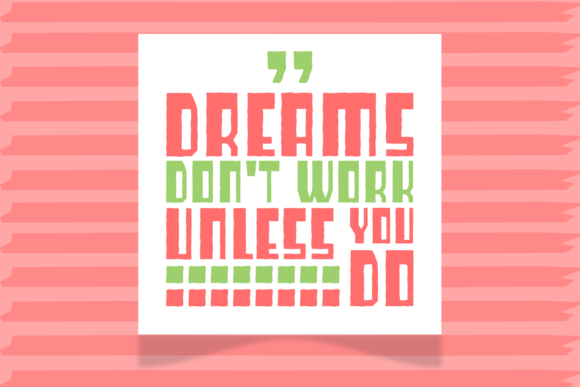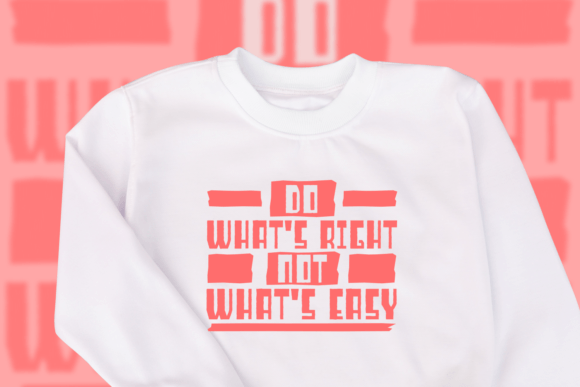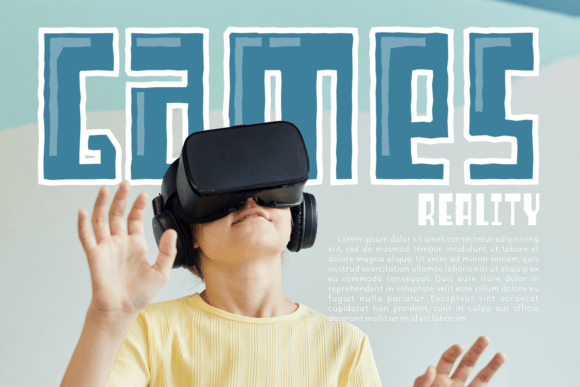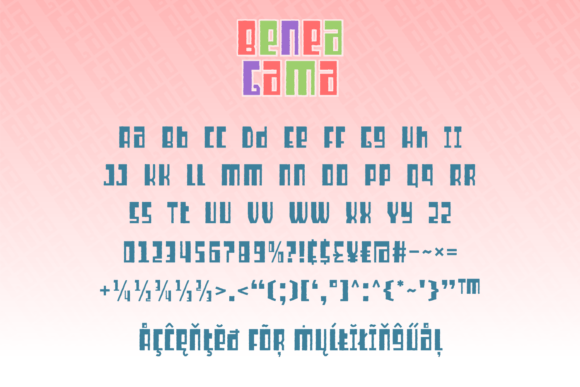
Benea Gama Font: Unleash Your Creativity with this Unconventional Display Font
In the world of typography, fonts play a crucial role in conveying a message, expressing creativity, and setting the tone for a brand or project. With countless options available, designers and crafters are always on the lookout for something unique and attention-grabbing. This is where Benea Gama Font comes in – a quirky and unconventional display font that challenges traditional design and adds an element of surprise to any project.
The Uniqueness of Benea Gama Font
Benea Gama Font is unlike any other font you’ve ever seen. Its unusual shapes and irregular curves make it a true standout in the world of typography. This font is not for the faint of heart; it’s for those who dare to be different and want to make a statement. With Benea Gama Font, you can add a touch of whimsy and playfulness to your designs, making it perfect for innovative branding, unconventional marketing campaigns, and any project that requires a bold and memorable font.
Characteristics of Benea Gama Font
So, what makes Benea Gama Font so special? Here are a few of its key characteristics:
• Quirky and unconventional shapes: Benea Gama Font features unusual shapes and irregular curves that challenge traditional design.
• Bold and memorable: This font is designed to stand out from the crowd, making it perfect for projects that require a bold and attention-grabbing font.
• Perfect for innovative branding: Benea Gama Font is ideal for brands that want to make a statement and differentiate themselves from the competition.
• Unconventional style: This font is not for the traditionalist; it’s for those who want to push the boundaries of design and try something new.
Uses of Benea Gama Font
Benea Gama Font is a versatile font that can be used in a variety of projects, including:
• Branding and logos: Use Benea Gama Font to create a unique and memorable logo that sets your brand apart.
• Marketing campaigns: This font is perfect for unconventional marketing campaigns that require a bold and attention-grabbing font.
• Advertising: Use Benea Gama Font to create eye-catching ads that stand out from the crowd.
• Packaging design: Add a touch of whimsy and playfulness to your packaging design with Benea Gama Font.
• Digital media: This font is perfect for digital media, including social media graphics, videos, and websites.
Benea Gama Font is a unique and unconventional display font that challenges traditional design and adds an element of surprise to any project. Its quirky and irregular shapes make it perfect for innovative branding, unconventional marketing campaigns, and any project that requires a bold and memorable font. With its versatility and creative possibilities, Benea Gama Font is a must-have for designers and crafters who want to push the boundaries of design and try something new.